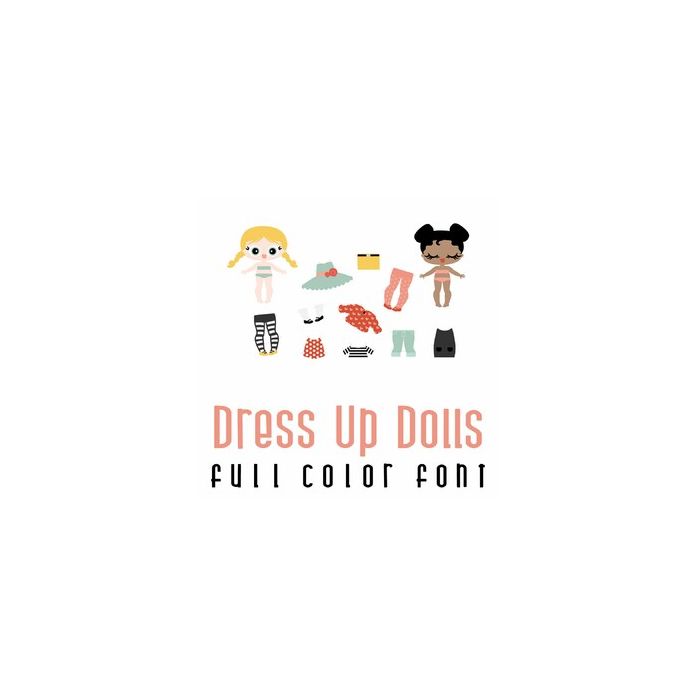
This fun full color doodlebat font features 32 dress up dolls and clothing. Perfect for cards, crafts, gifts, decor, scrap book pages, planner stickers and more! Images are A-Z and 0-5.